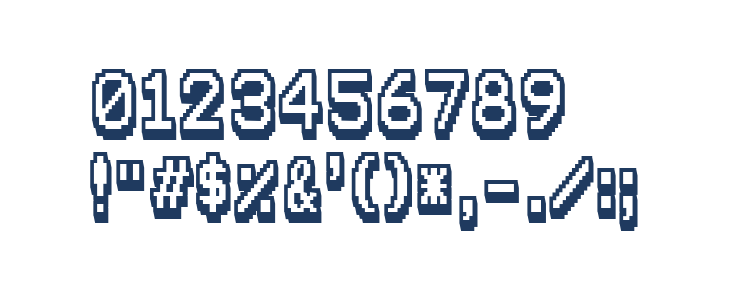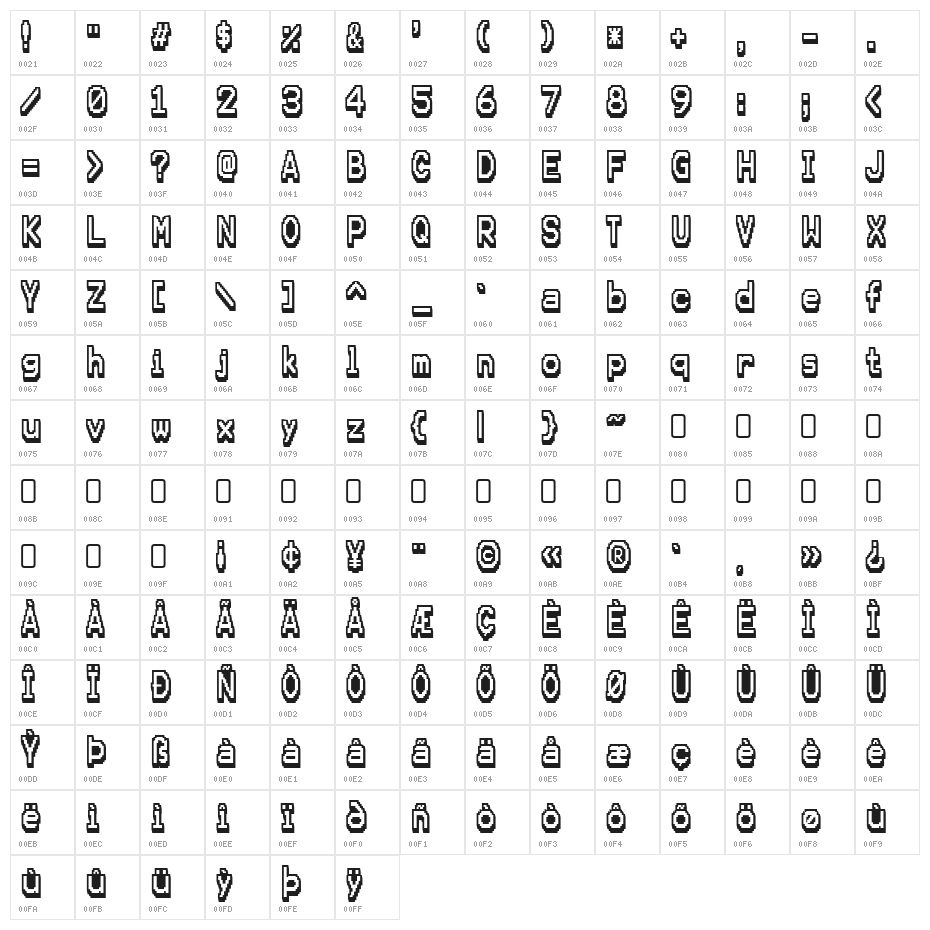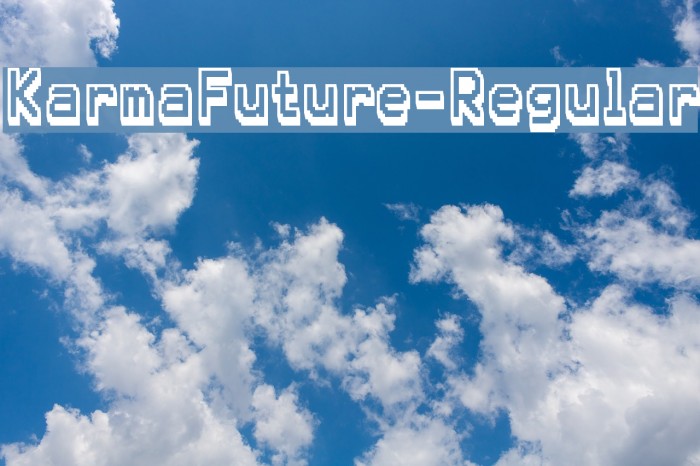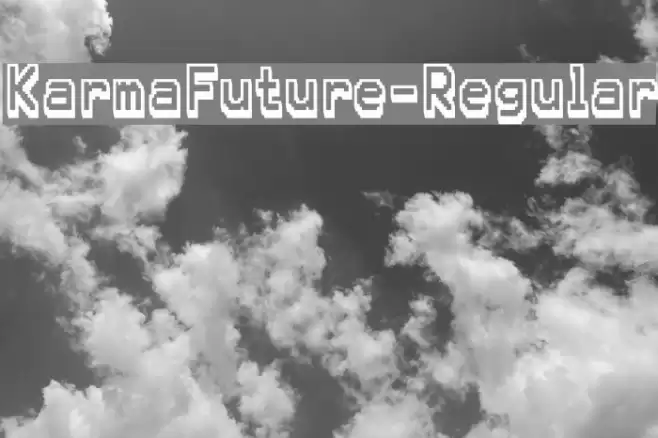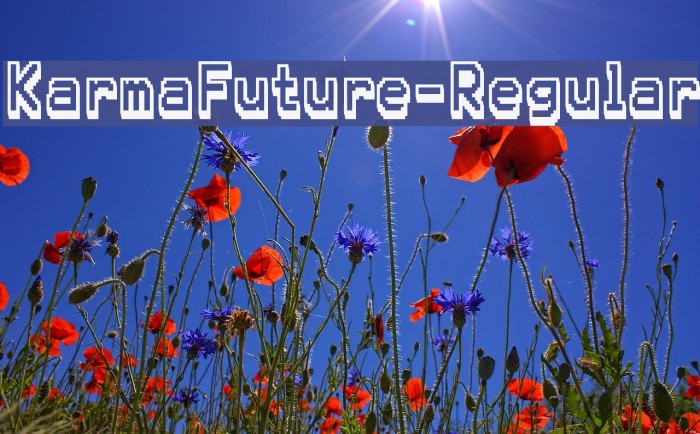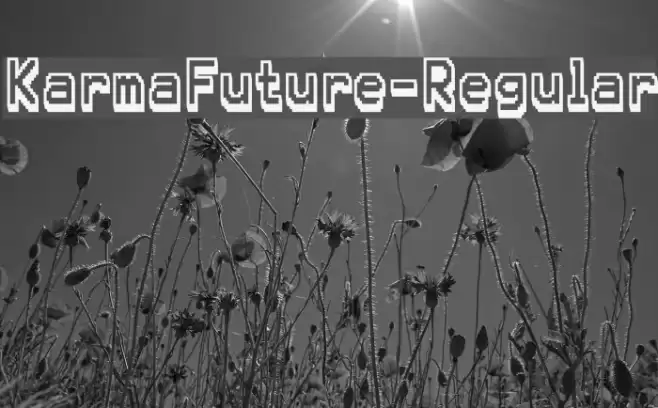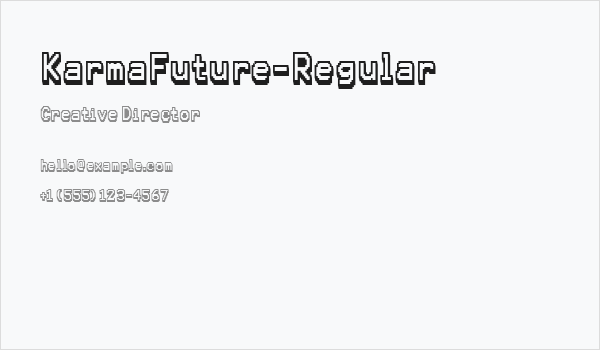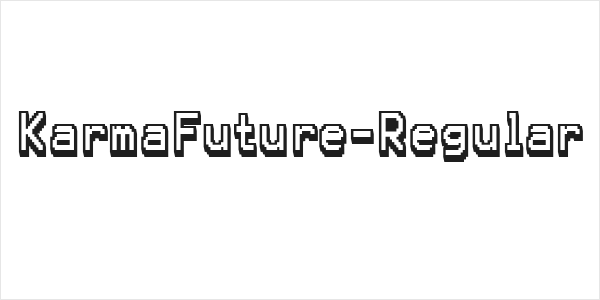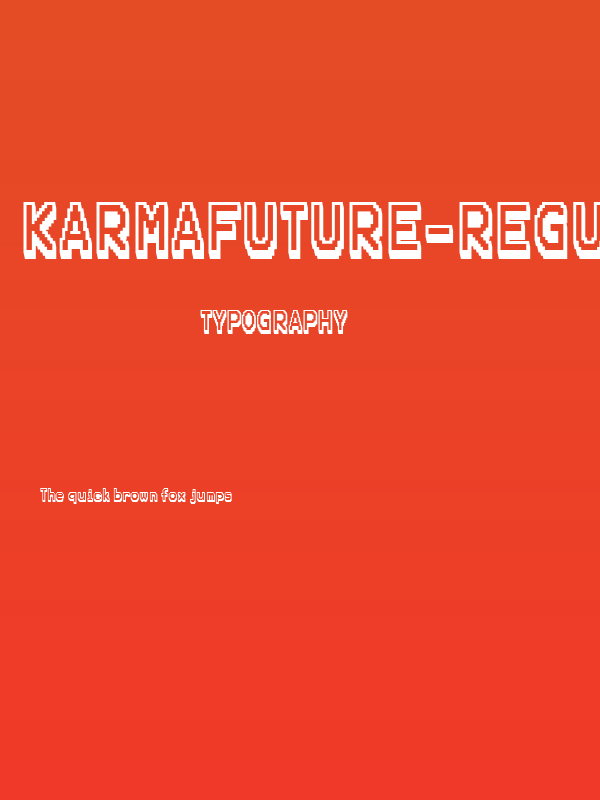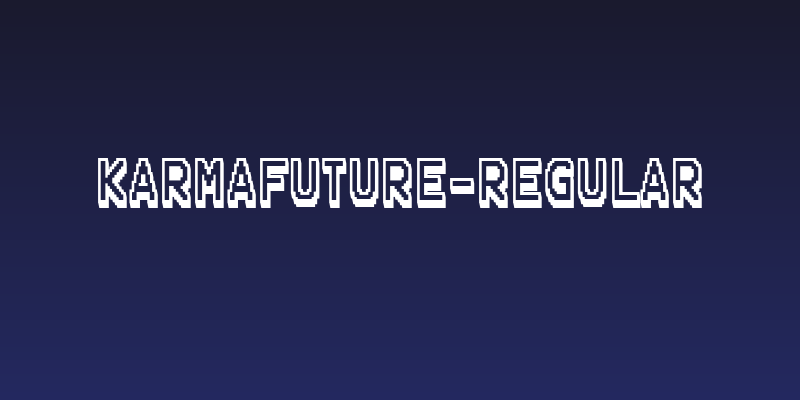
KarmaFuture-Regular Font
KarmaFuture-Regular Description
This font features a bold, pixelated design reminiscent of classic video game graphics. Each character is constructed with a blocky, geometric style, giving it a retro, digital appearance. The uppercase and lowercase letters maintain a consistent width, enhancing the uniformity and readability of the text. Numbers and special characters follow the same pixelated theme, ensuring a cohesive look across all elements. The font's distinct outline adds depth and a three-dimensional effect, making it stand out in digital and print media.
| Use Case | Headlines, Logos, Digital Art |
| Proposed Projects | Ideal for video game graphics, retro-themed posters, digital art, and any project requiring a nostalgic, pixel art aesthetic. |